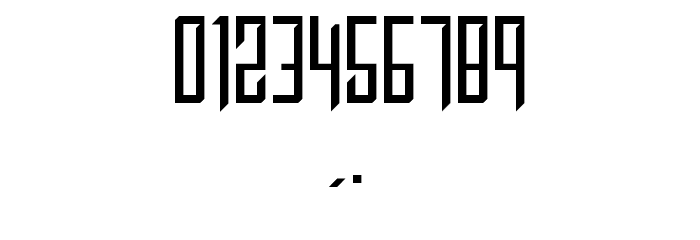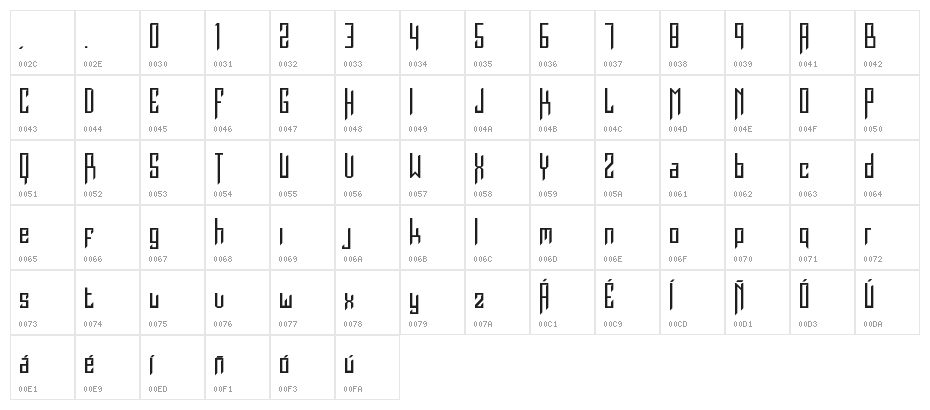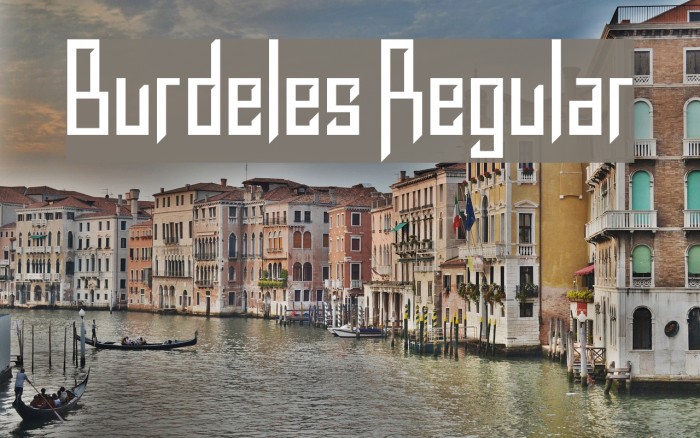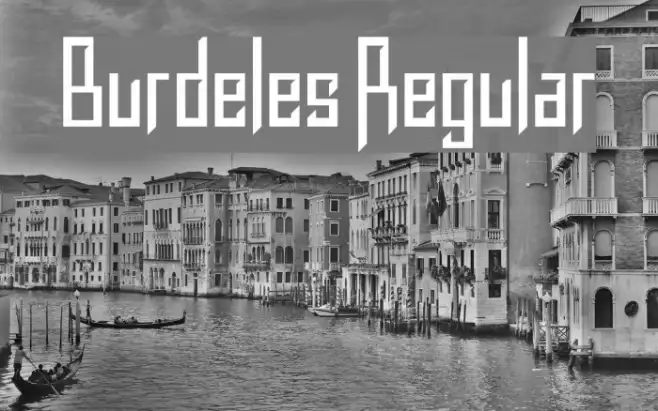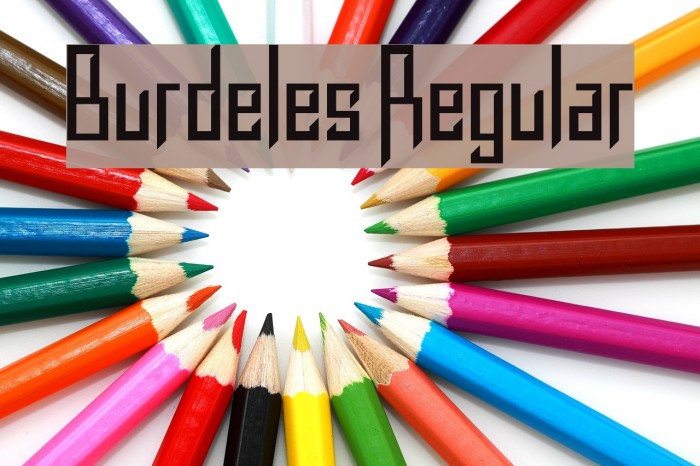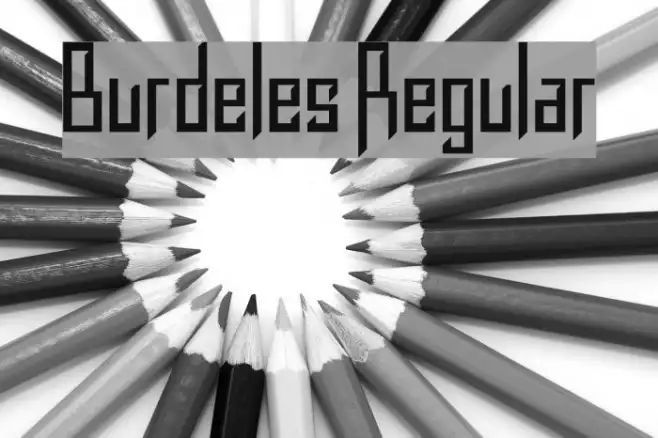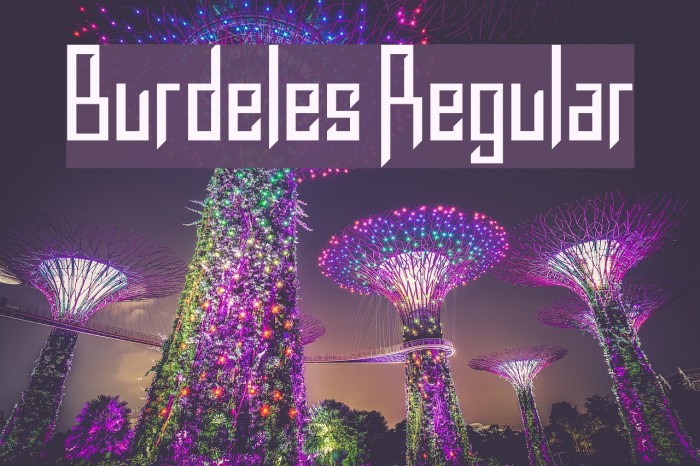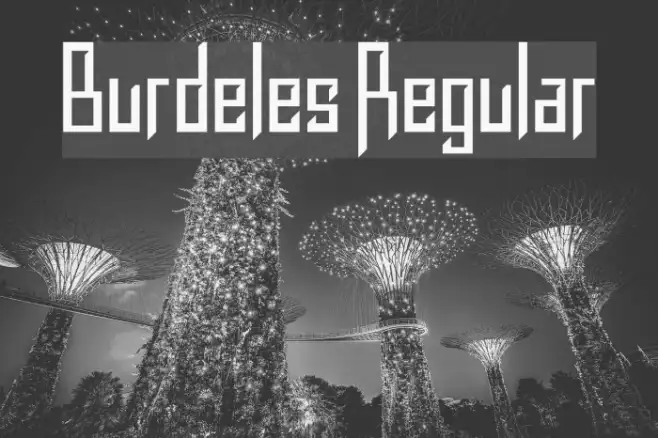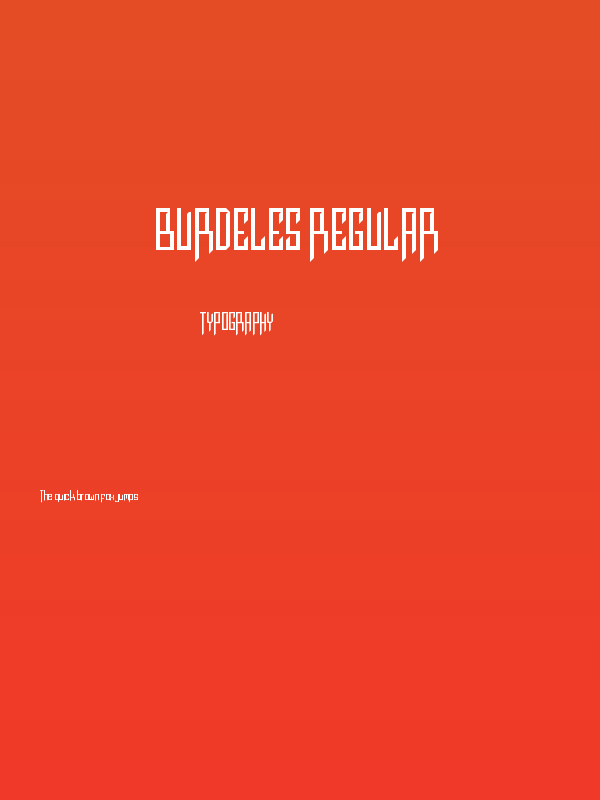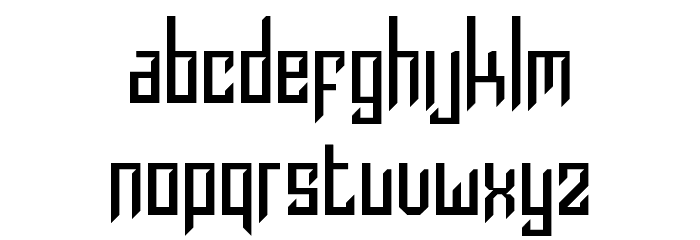
Burdeles Regular Font
Burdeles Regular Description
This font features a bold and angular design, characterized by sharp edges and geometric shapes. The uppercase letters are tall and narrow, with a distinct vertical emphasis, while the lowercase letters maintain a consistent style with slightly more rounded forms. The numerals are uniquely styled to match the overall aesthetic, providing a cohesive look across all characters. The special characters are designed to complement the font's angular nature, making it suitable for modern and edgy design projects.
Burdeles - Carlos Sancho